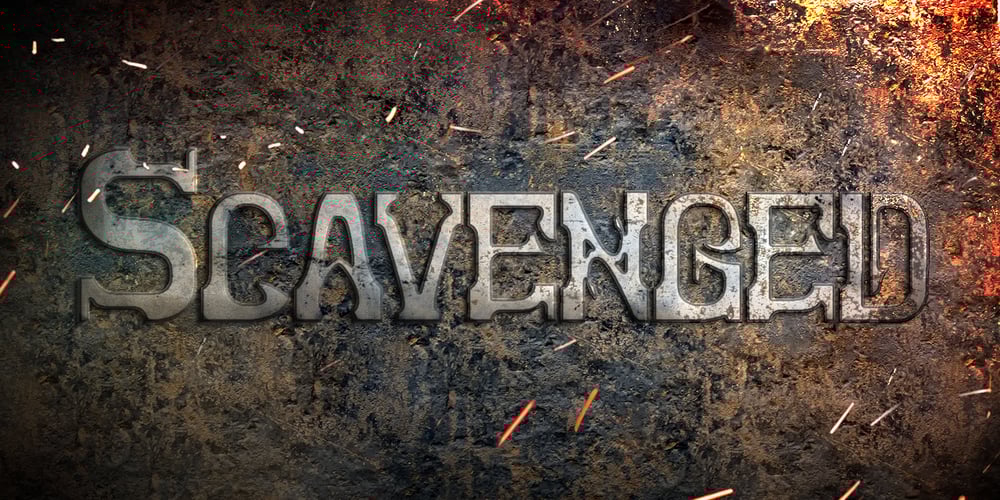
Scavenged Font Family was designed by Alexander Trosok and published by AT Foundry. Scavenged contains 1 styles and family package options. My font takes inspiration from repeating firearms of the mid- to late 18th Century; their sleek and elegant appearance contrasts with their rigidity and simplicity are what I attempted to implement within the font itself. I imagined the font being used for logos, titles and other forms of large text as the font looks best when its finer details can be made out.